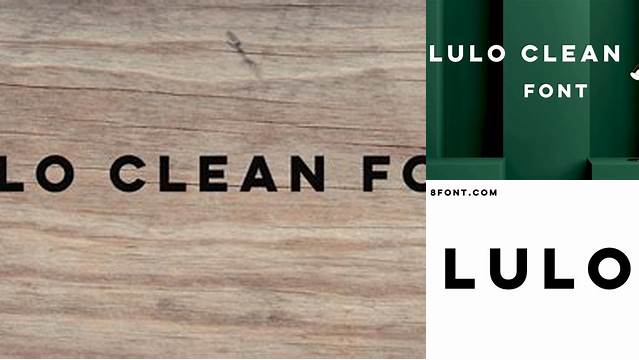
Hey guys! Are you on the hunt for a super clean and modern font to spice up your designs on your Mac? Well, look no further! We're diving deep into the world of Lulo Clean Font and how you can snag it for free. Let's get started!
1. What is Lulo Clean Font?
Lulo Clean Font is a modern sans-serif typeface known for its simplicity and versatility. It's perfect for a wide range of design projects, from logos and branding to websites and print materials. Its clean lines and geometric shapes give it a contemporary feel, making it a popular choice among designers. The font's readability and aesthetic appeal make it a go-to option for those aiming to achieve a polished and professional look. With various weights and styles available, Lulo Clean offers flexibility and adaptability for various design needs, ensuring it remains a valuable asset in any designer's toolkit.
The Benefits of Using Lulo Clean Font
Using Lulo Clean Font in your design projects comes with numerous benefits. First and foremost, its clean and modern aesthetic can instantly elevate the look and feel of your work. The font's simplicity ensures readability across various mediums, whether it's on a website, a printed brochure, or a mobile app. This versatility makes it a reliable choice for diverse projects, from branding and advertising to editorial design. Additionally, Lulo Clean's geometric shapes and well-balanced letterforms contribute to a professional and polished appearance, helping to convey a sense of competence and attention to detail. Furthermore, the availability of various weights and styles allows designers to customize the font to suit specific project requirements, ensuring that it seamlessly integrates with the overall design concept. In essence, Lulo Clean Font offers a winning combination of style, readability, and versatility, making it an excellent choice for designers seeking a modern and impactful typeface.
Choosing Lulo Clean for your Mac is a smart move if you're after a font that balances aesthetics and functionality. Macs are known for their crisp displays, and Lulo Clean takes full advantage of this with its sharp, clean lines. Whether you're working on graphic design projects, creating presentations, or even writing documents, this font ensures readability and a professional look. Its versatility shines through in various applications, making it a reliable choice for all your typographic needs. Plus, having Lulo Clean in your font library means you're equipped with a modern typeface that's always ready to elevate your work.
Elevating Your Designs with Modern Typography